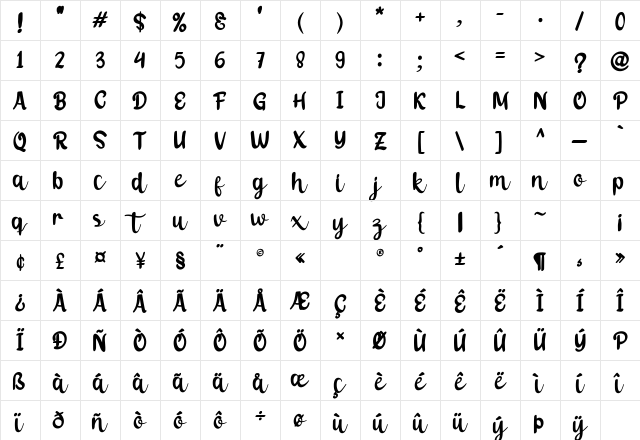
Complete Bebast Regular glyph index. Displaying only characters natively supported by Bebast Regular font.
Bebast is a composed and adaptable typeface that performs quietly and consistently across a wide range of design contexts.